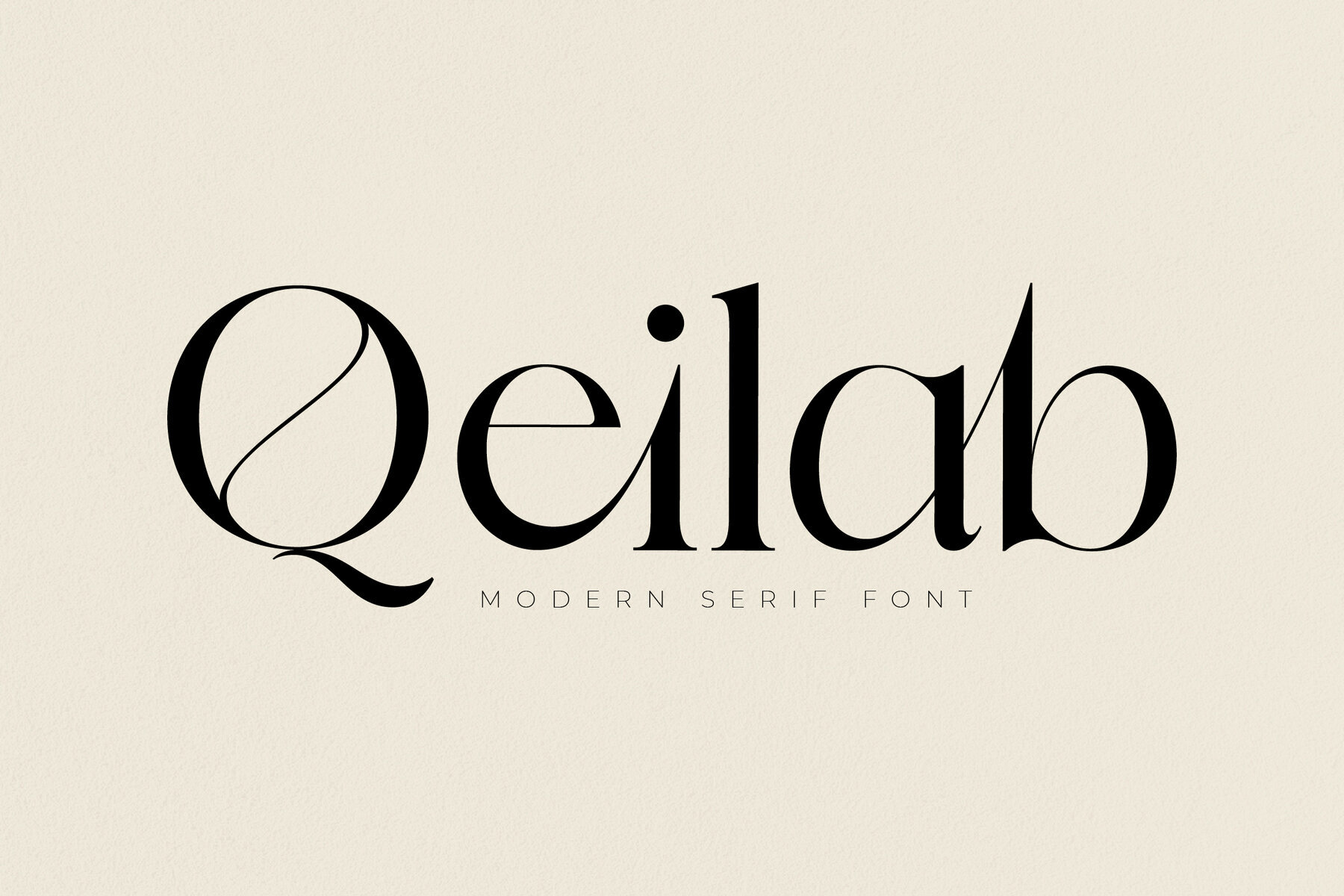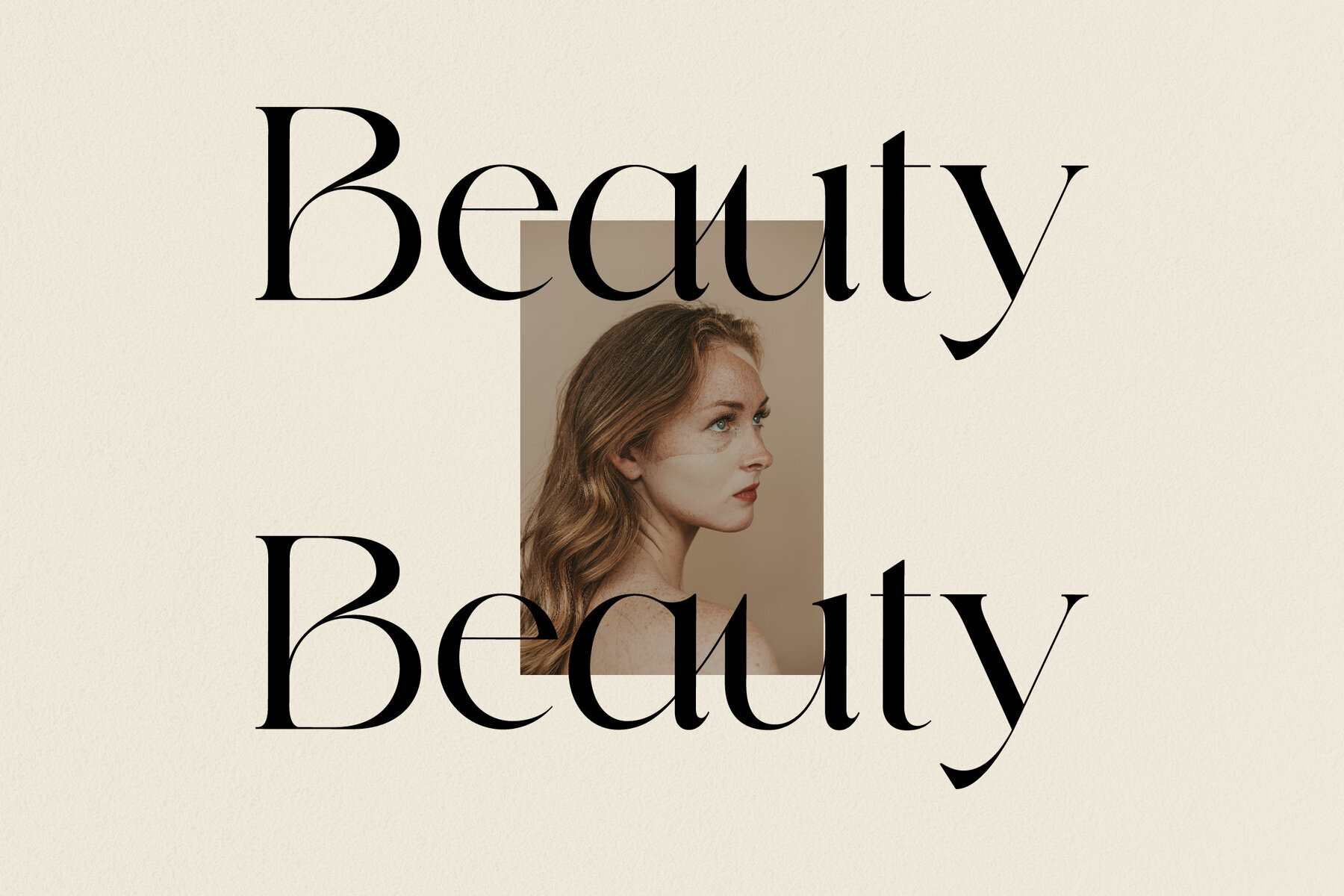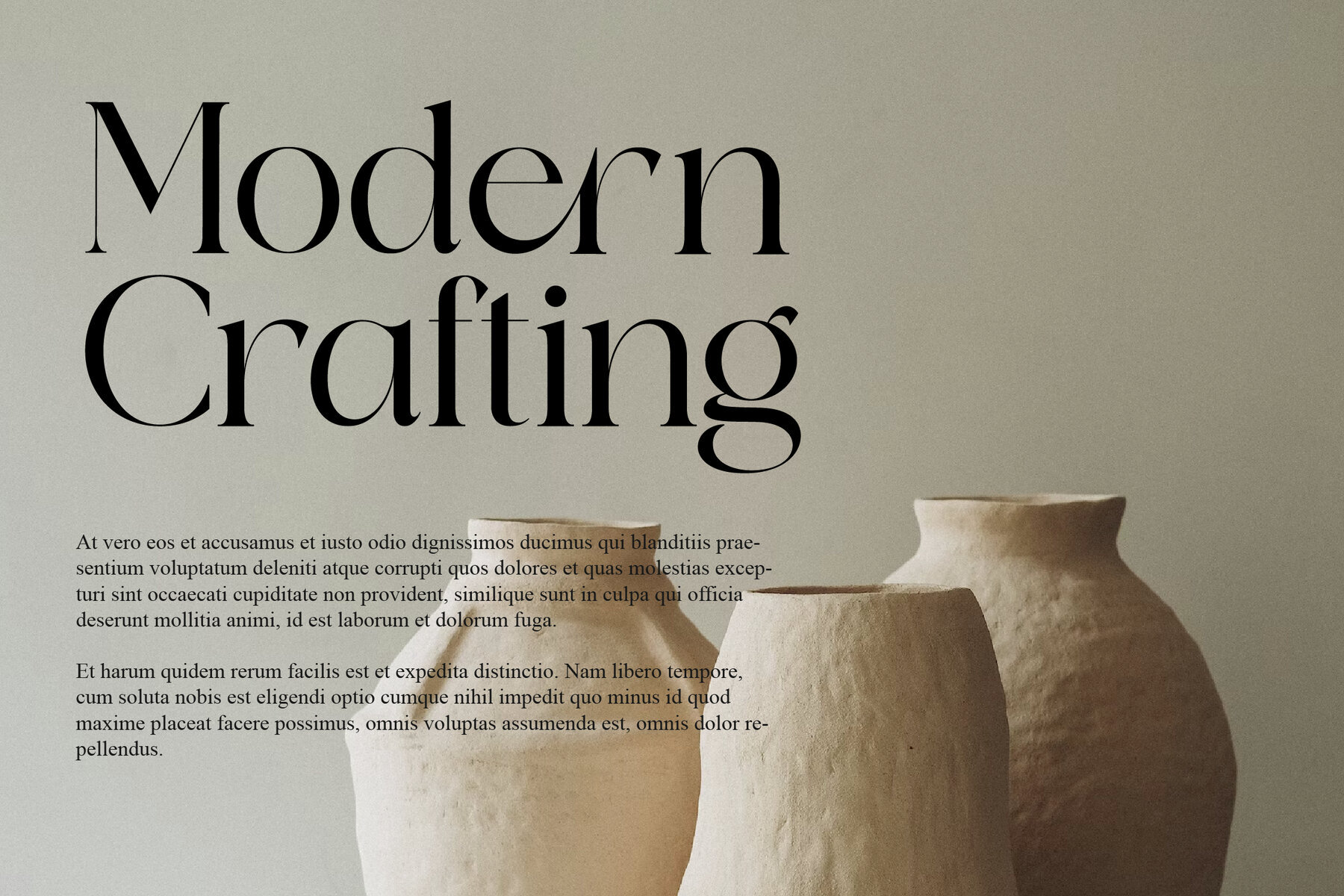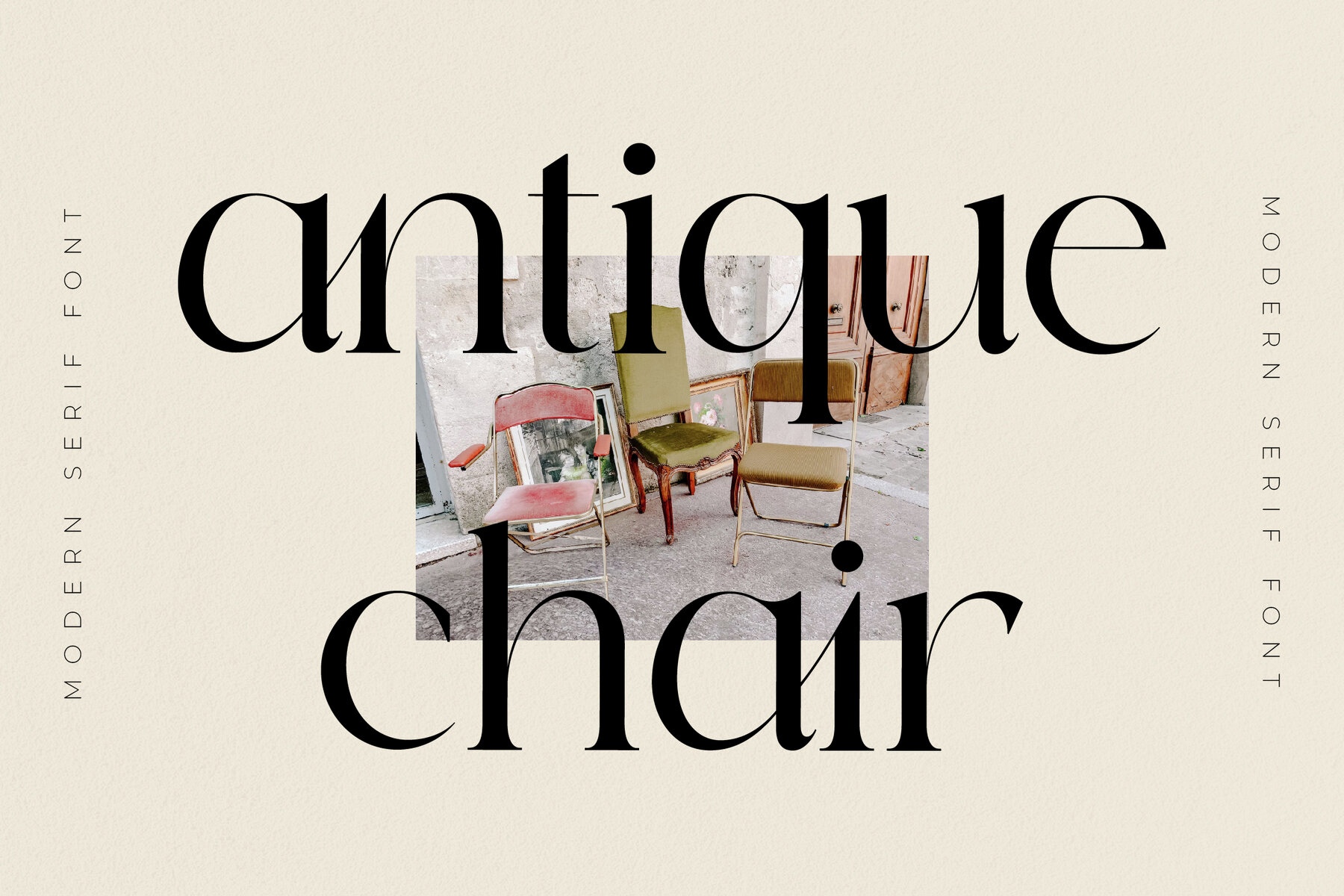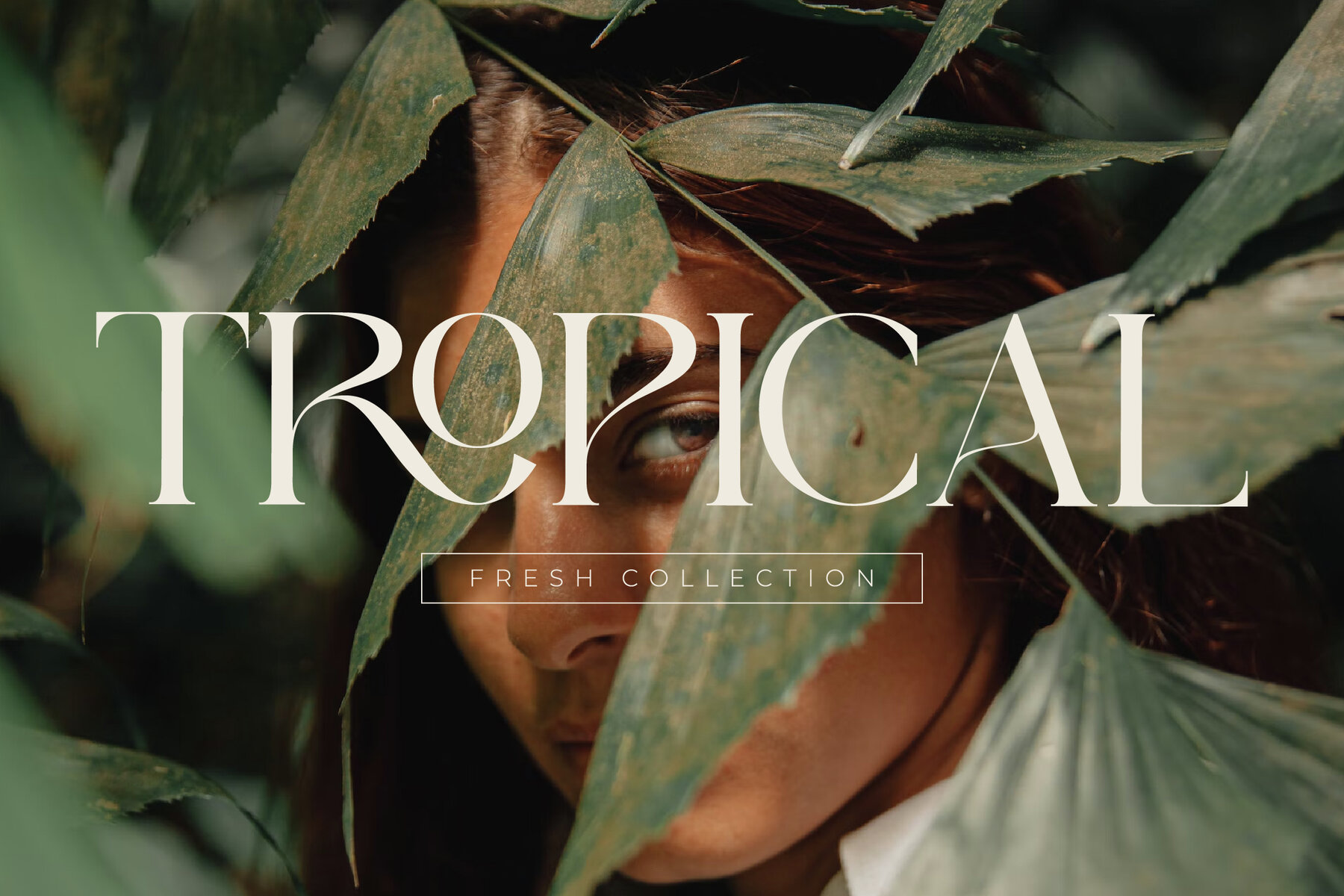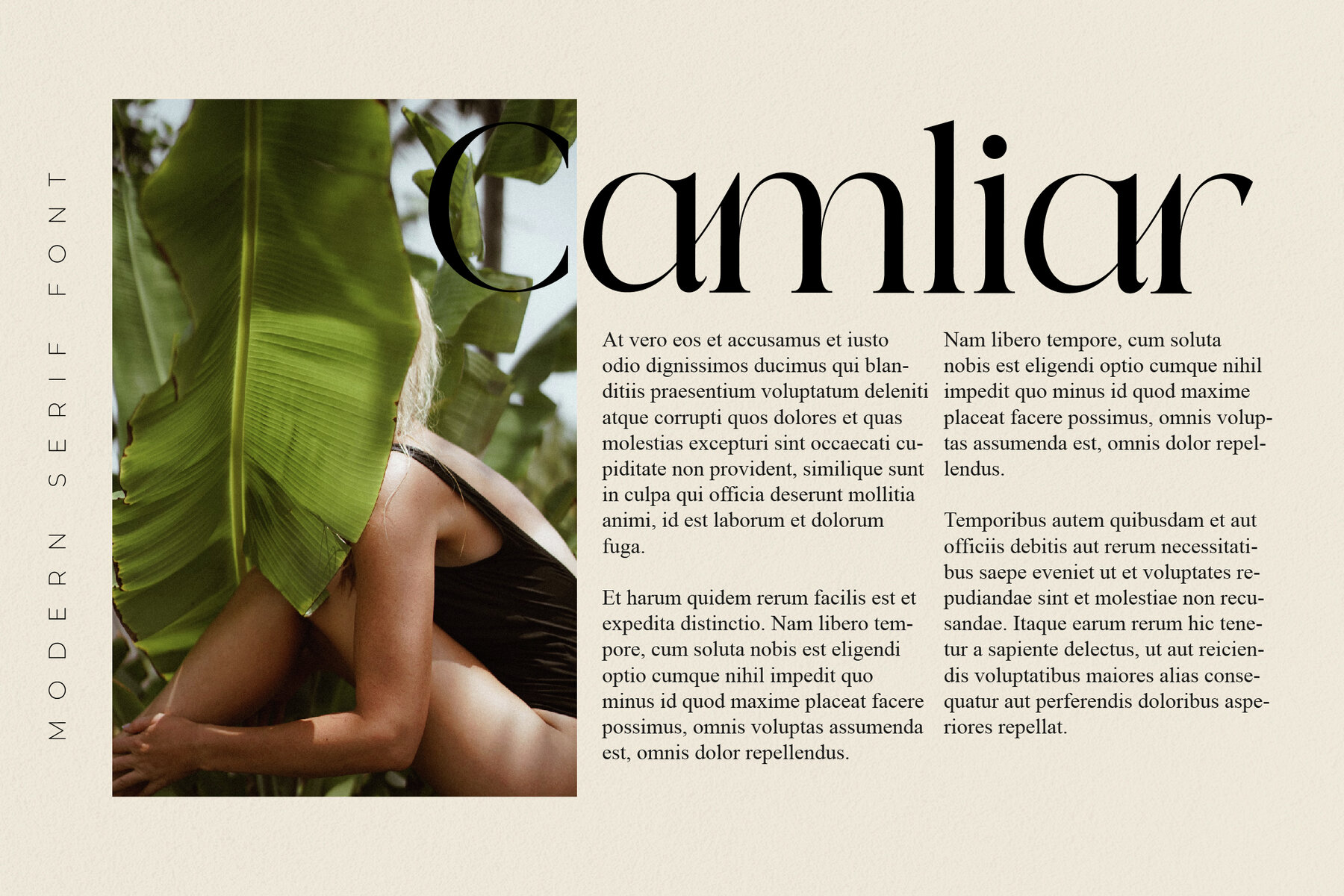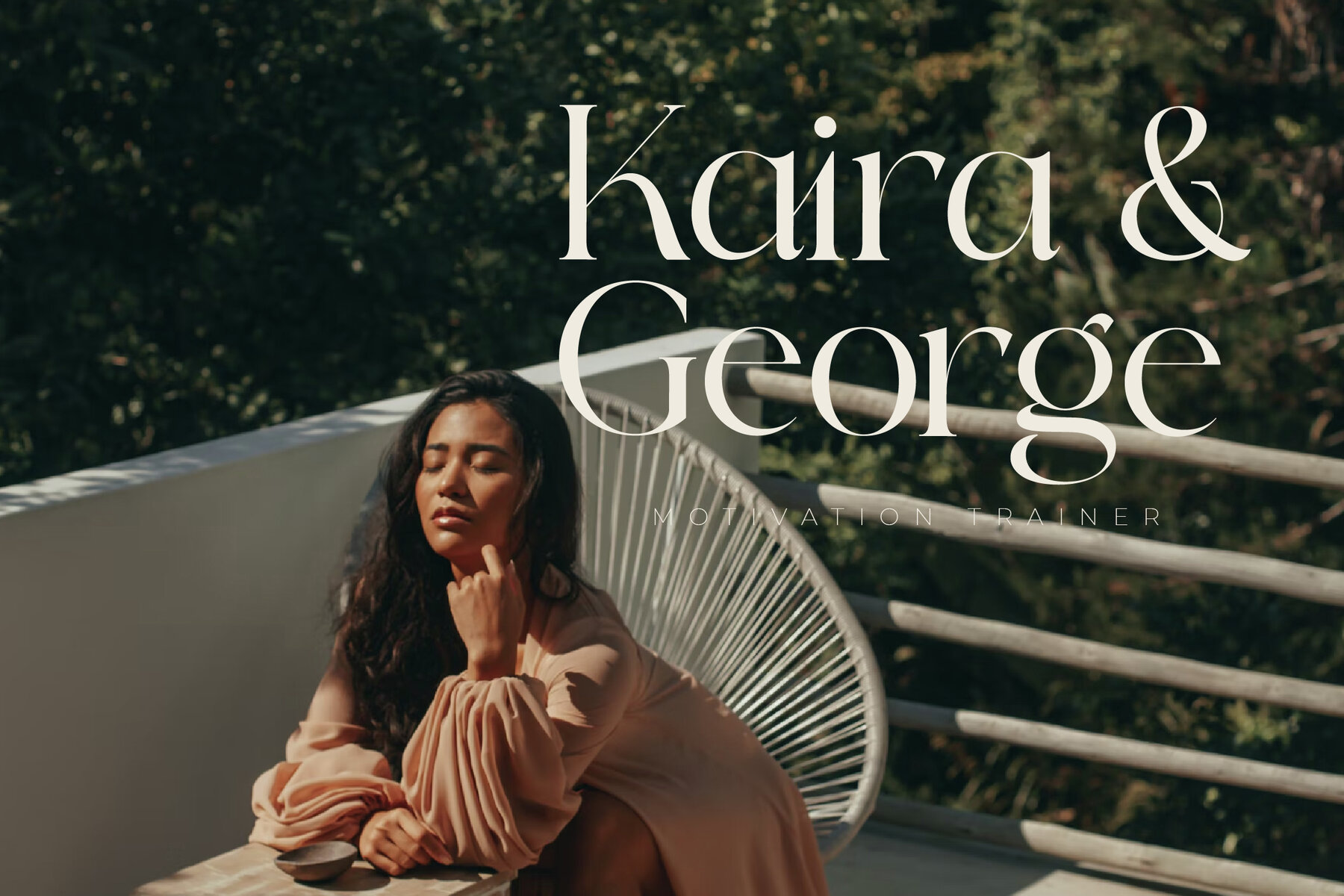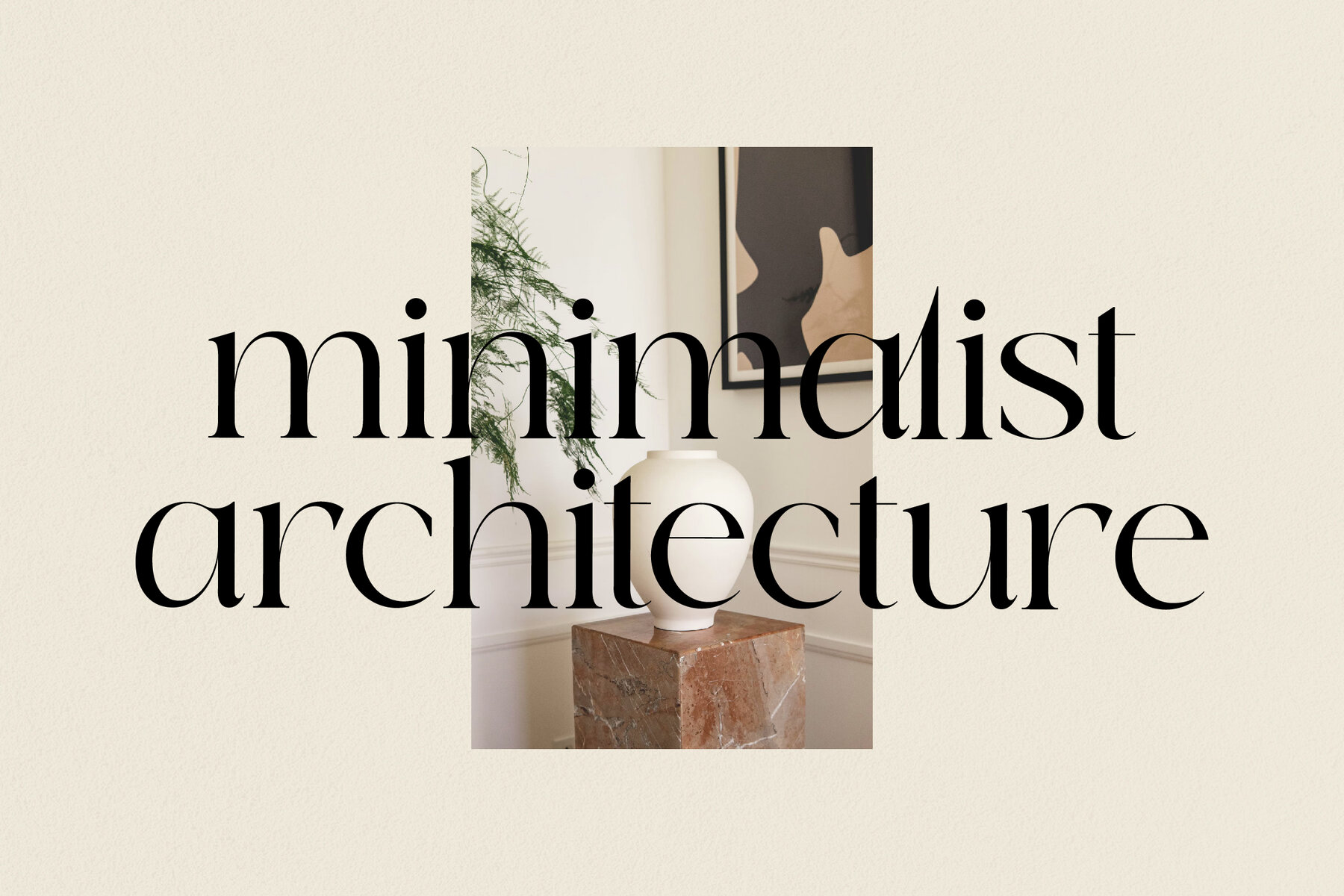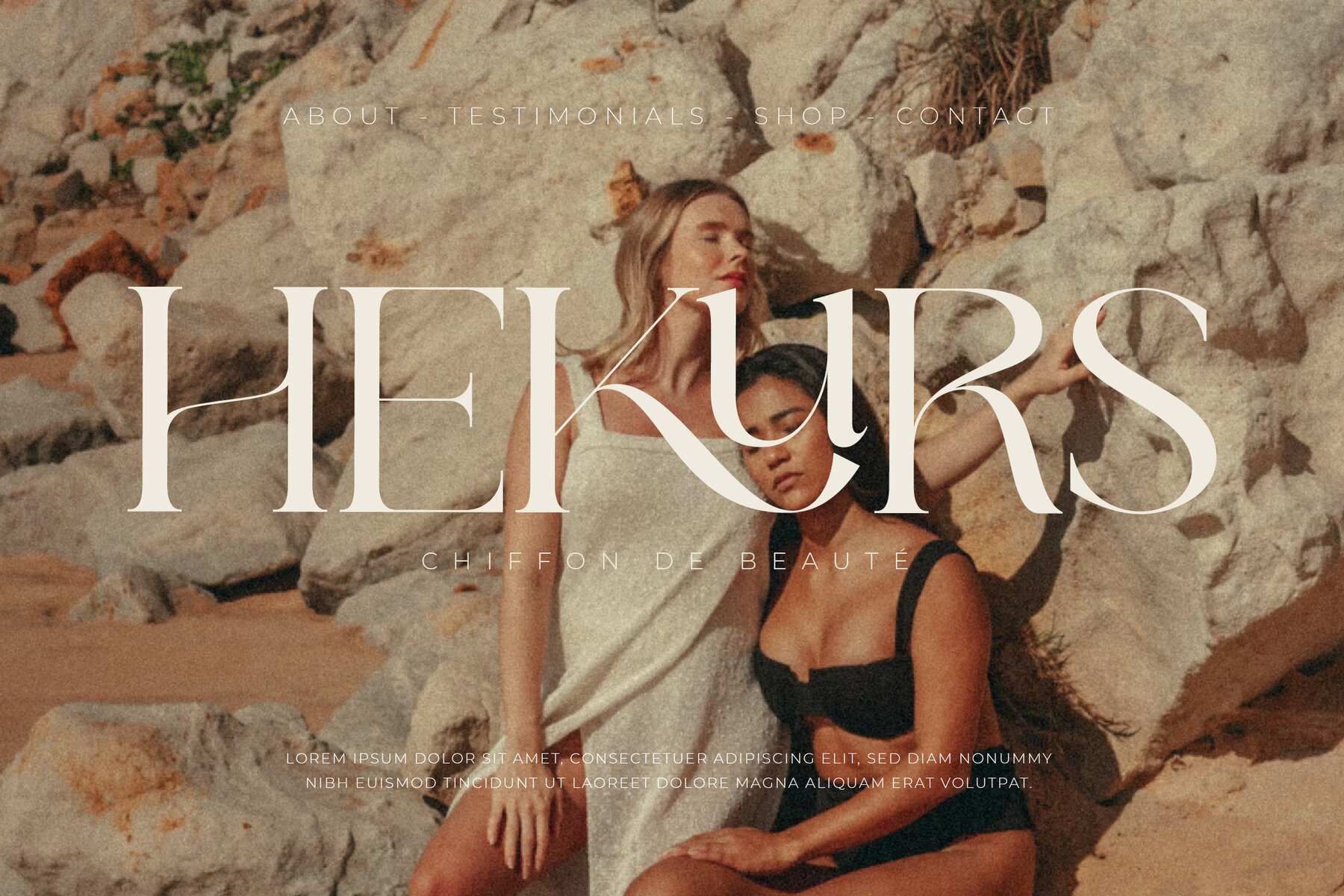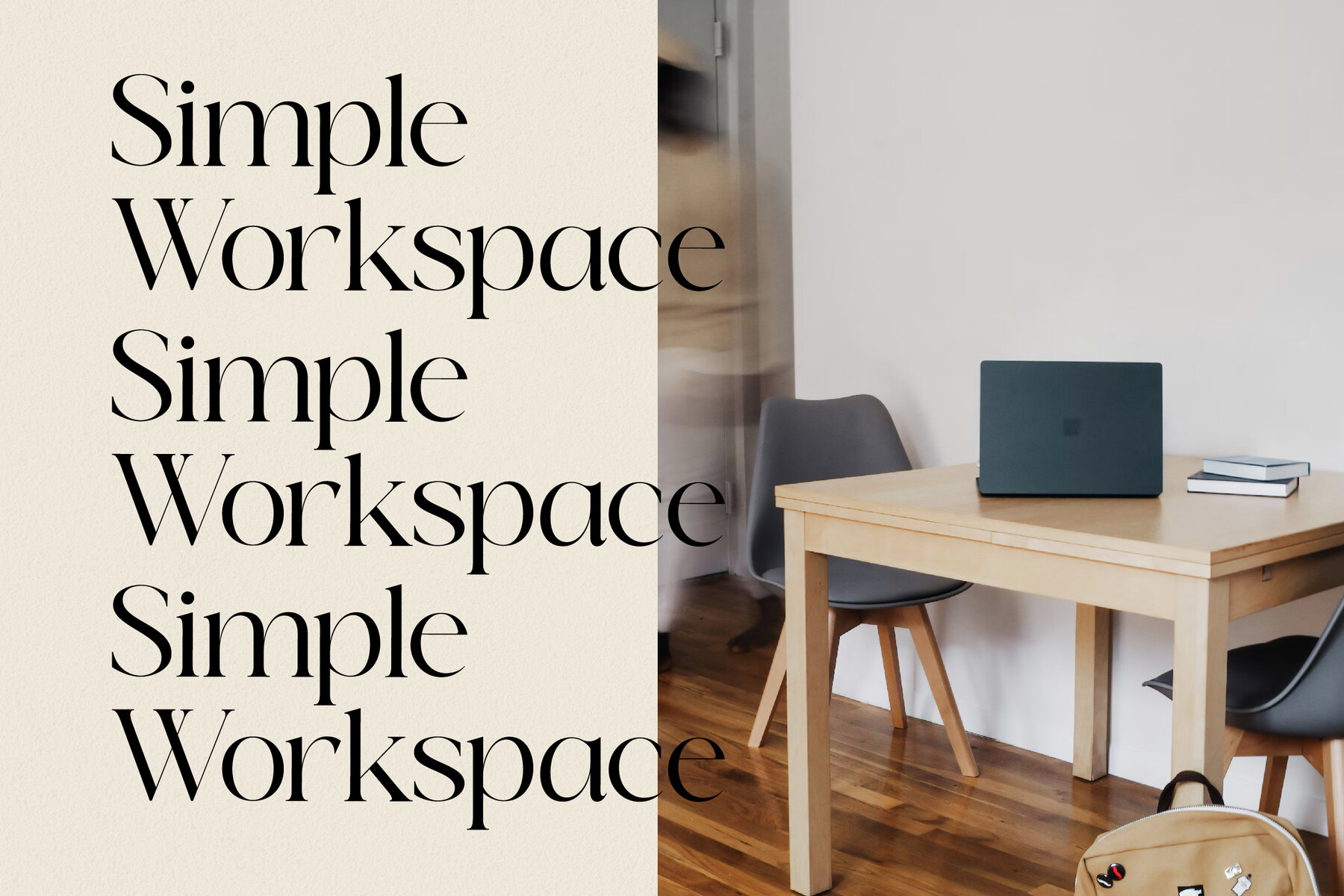
Qeilab Font
The Qeilab typeface transcends typical serif classifications by blending modern finesse with timeless elegance. This distinctive typeface is crafted to infuse style into every project, from luxury branding and sophisticated book covers to high-fashion magazines and bespoke movie titles. Its unparalleled design serves as an eye-catching accent for quotes, establishment signage, and apparel branding.Qeilab Typeface: Where Elegance Meets Modernity